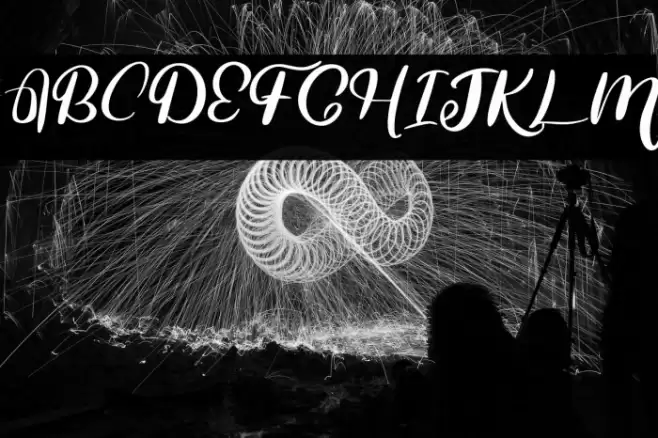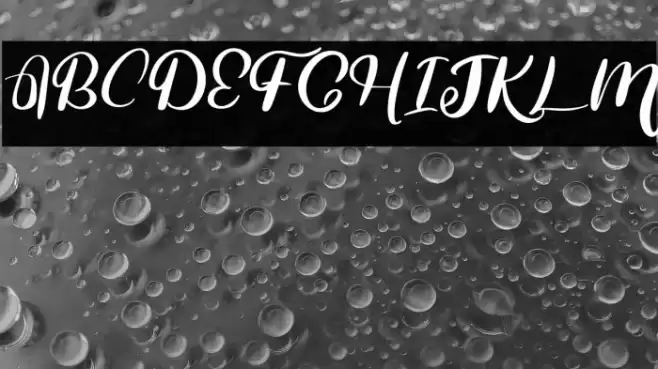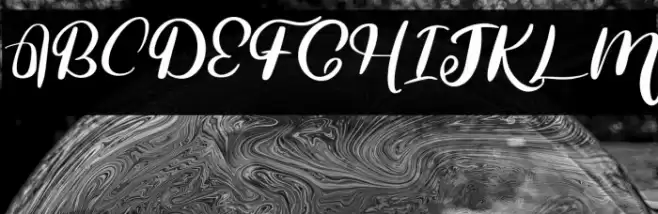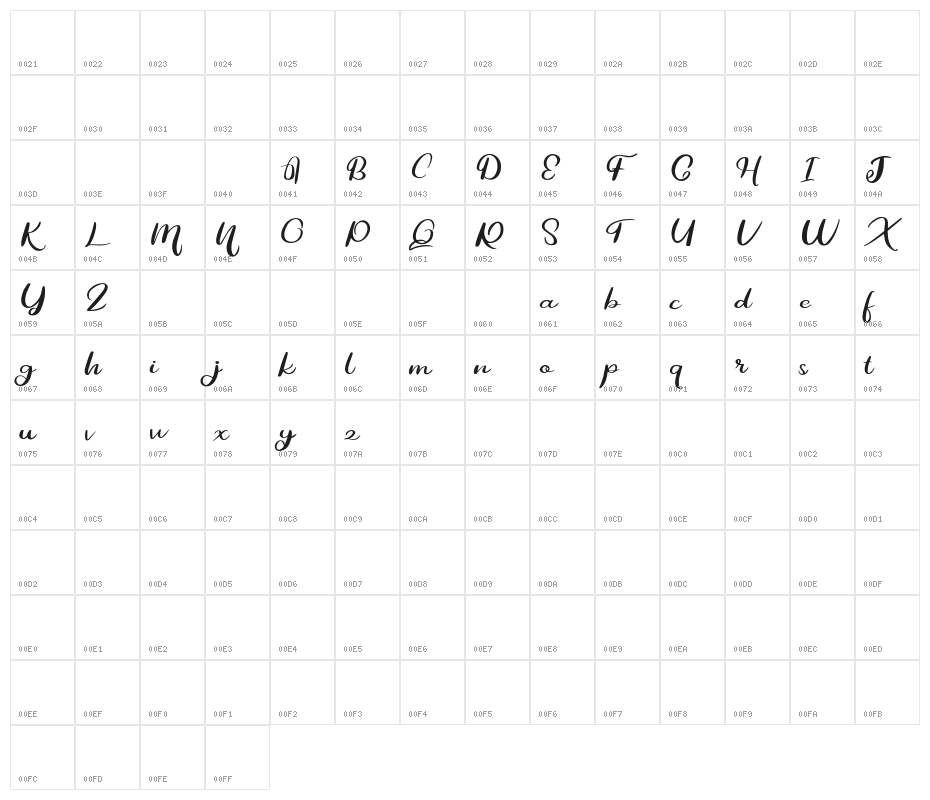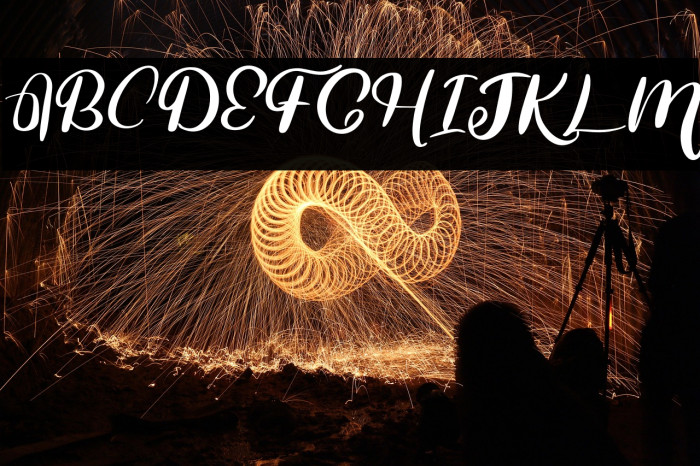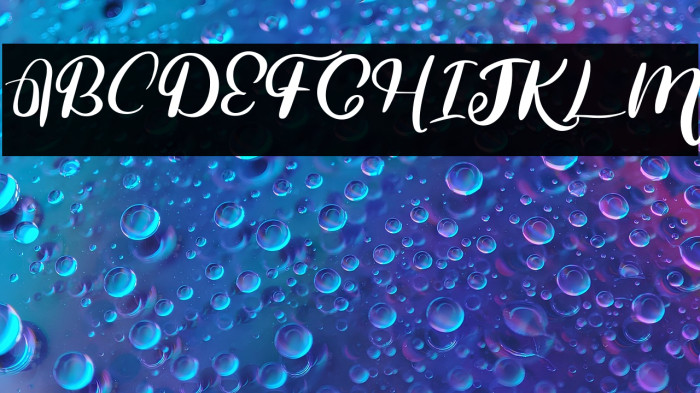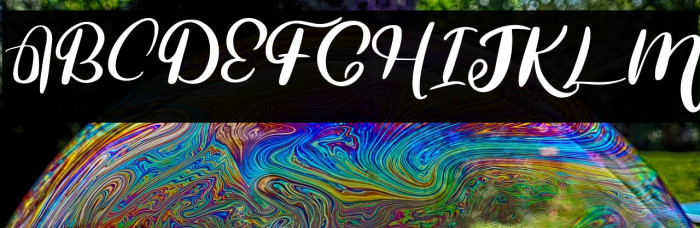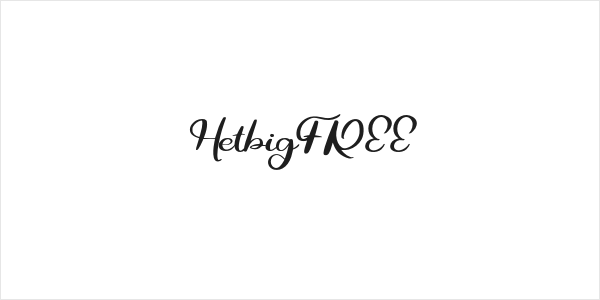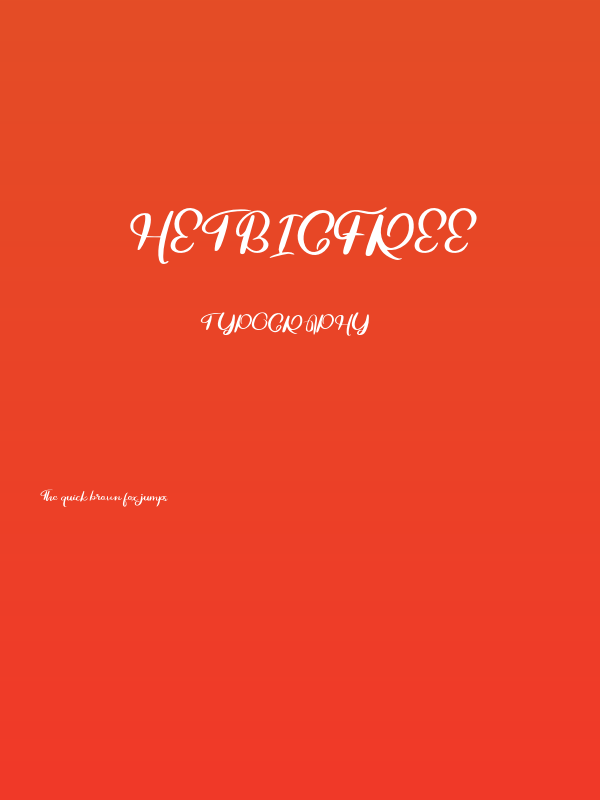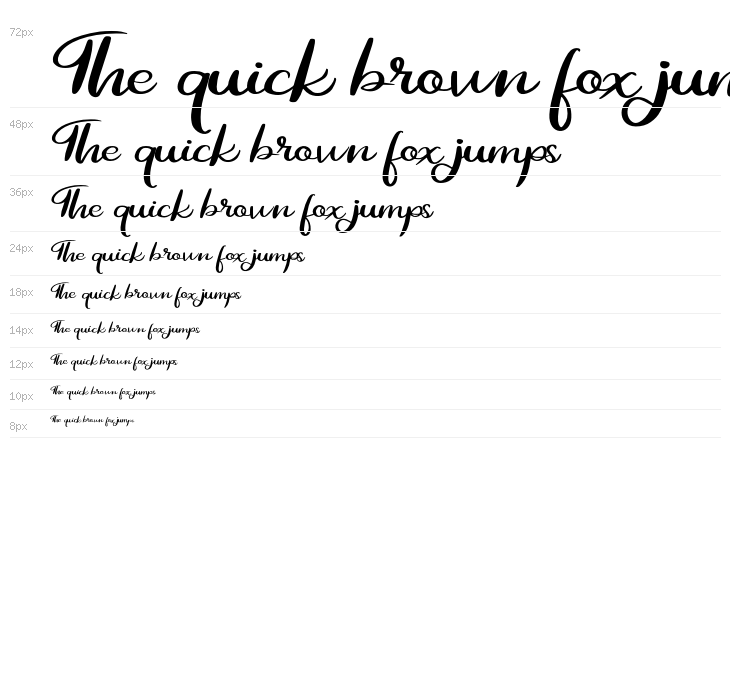
HetbigFREE Font
HetbigFREE Description
This font features a flowing, cursive style with elegant loops and swirls, giving it a sophisticated and artistic appearance. The uppercase letters are bold and ornate, with distinctive flourishes that add a touch of drama. The lowercase letters maintain a consistent style, with smooth connections between characters that enhance readability while preserving the decorative nature. The overall design is reminiscent of traditional calligraphy, yet it maintains a modern twist that makes it suitable for contemporary use. The font's unique characteristics make it ideal for projects that require a touch of elegance and creativity.
A flowing, cursive font with elegant loops and a modern calligraphic style from Uncategorized fonts.
- Proposed Projects: Ideal for wedding invitations, greeting cards, branding, and elegant logo designs.
- Use Case: Logos, Invitations, Decorative text